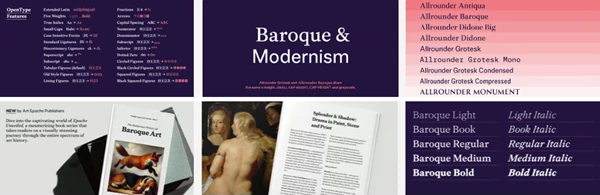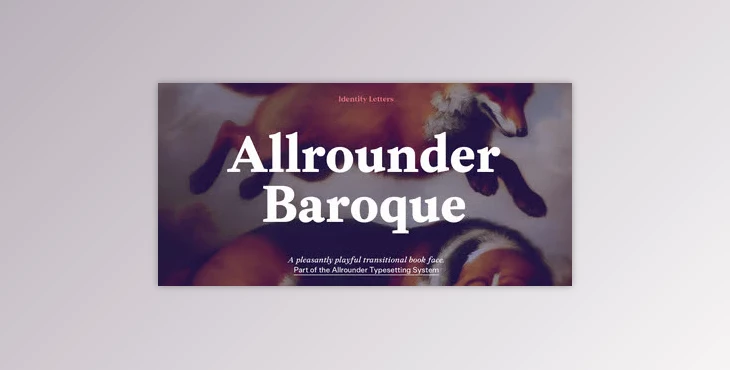
The Allrounder Baroque font family is a transitional serif within the Allrounder superfamily. Its medium-contrast, lively, and dynamic form makes it an excellent typeface for providing effortless legibility and guiding the eye across any text. Baroque takes inspiration from the historically significant typefaces created by van Dijck, Fleischmann, and Baskerville, and thrives as a book type. However, the sturdy nature of the font family also applies well to high-end branding and corporate uses, looking to offset formal with friendly.
With 10 styles in the family and 900+ glyphs, this family boasts extensive language support and many OpenType features for reliability in all types of use. The vertical metrics and texture of Allrounder Baroque work well with Allrounder's other fonts, rendering it easy to mix and match within the same design system.